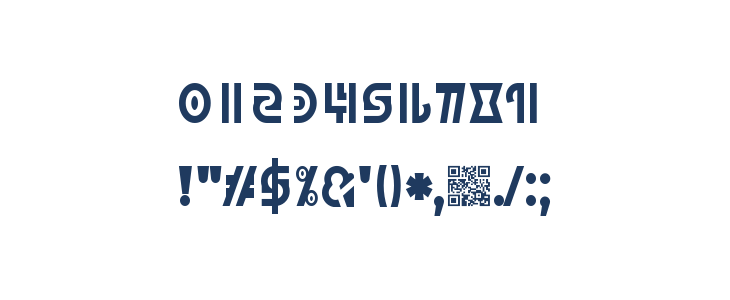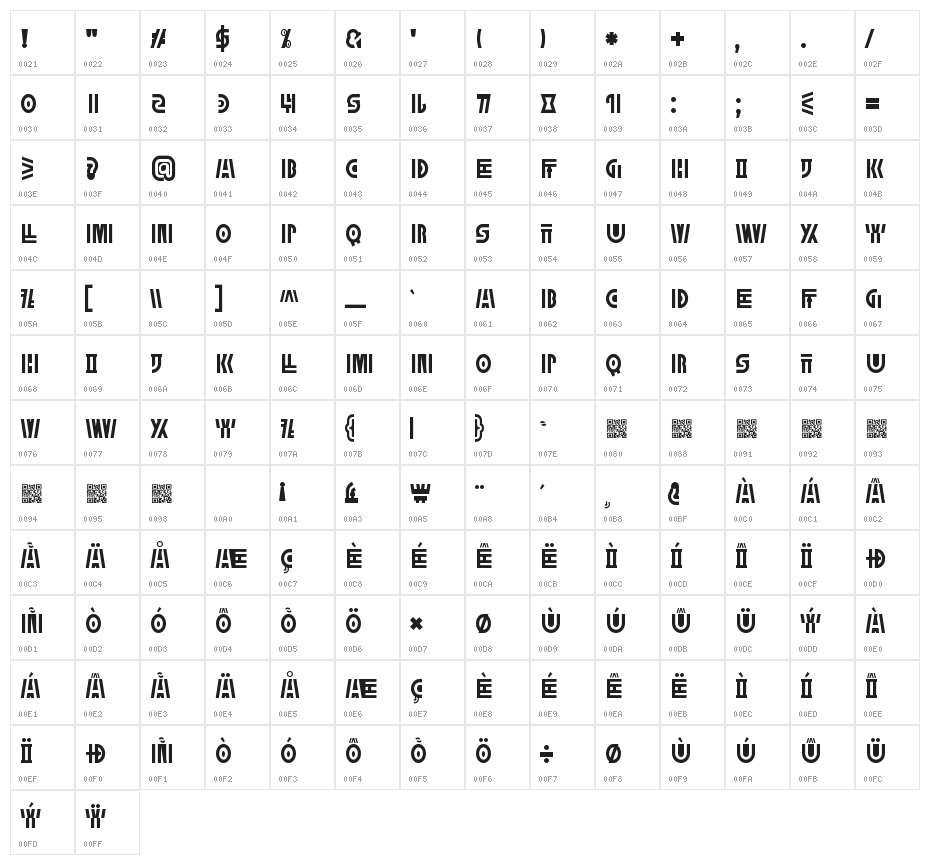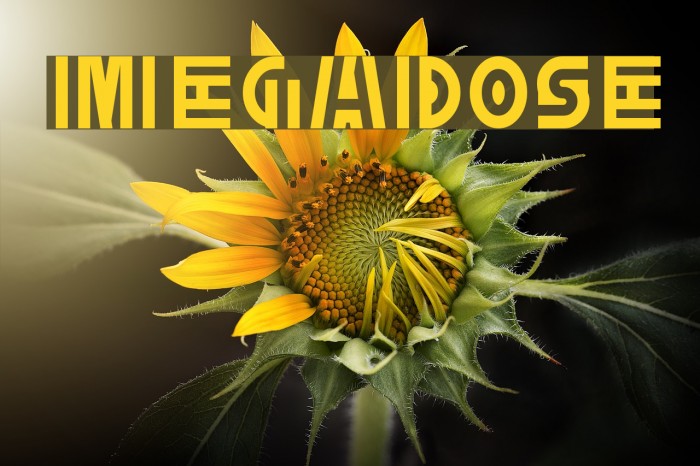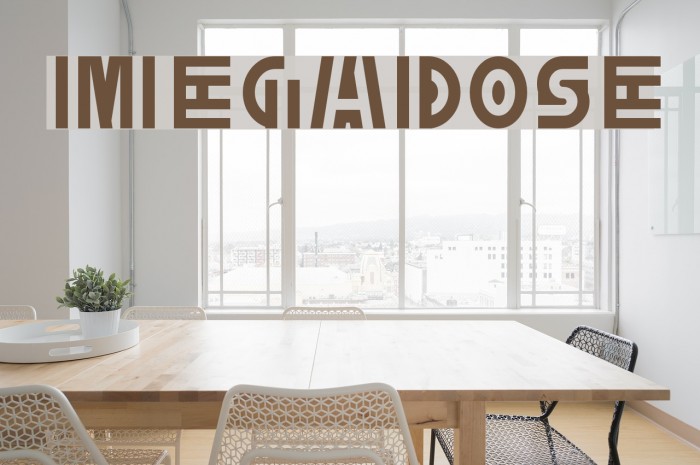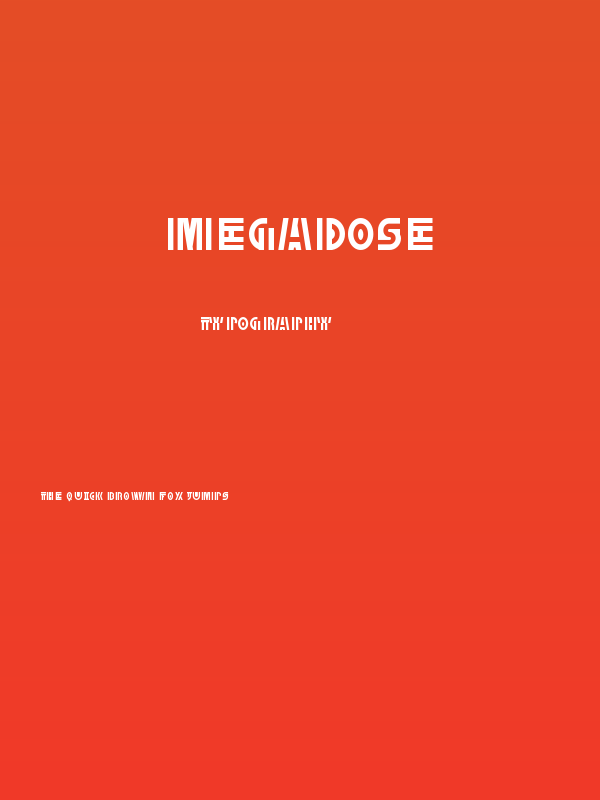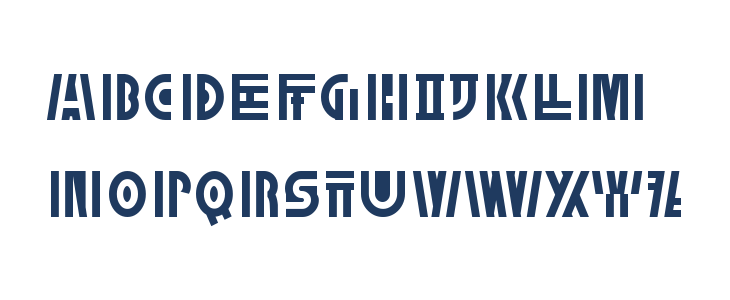
MegaDose Font
MegaDose Description
This font features a bold, geometric design with a strong emphasis on angular shapes and sharp edges. The characters are constructed with thick lines and distinct cutouts, creating a modern and industrial feel. The uppercase letters are particularly striking, with unique variations in form that add a dynamic and futuristic touch. The numerals and special characters maintain this aesthetic, ensuring consistency across all glyphs. This font's boldness and distinctive style make it ideal for attention-grabbing designs.
| Proposed Projects | Ideal for branding, posters, headlines, and any project requiring a strong, modern aesthetic. |